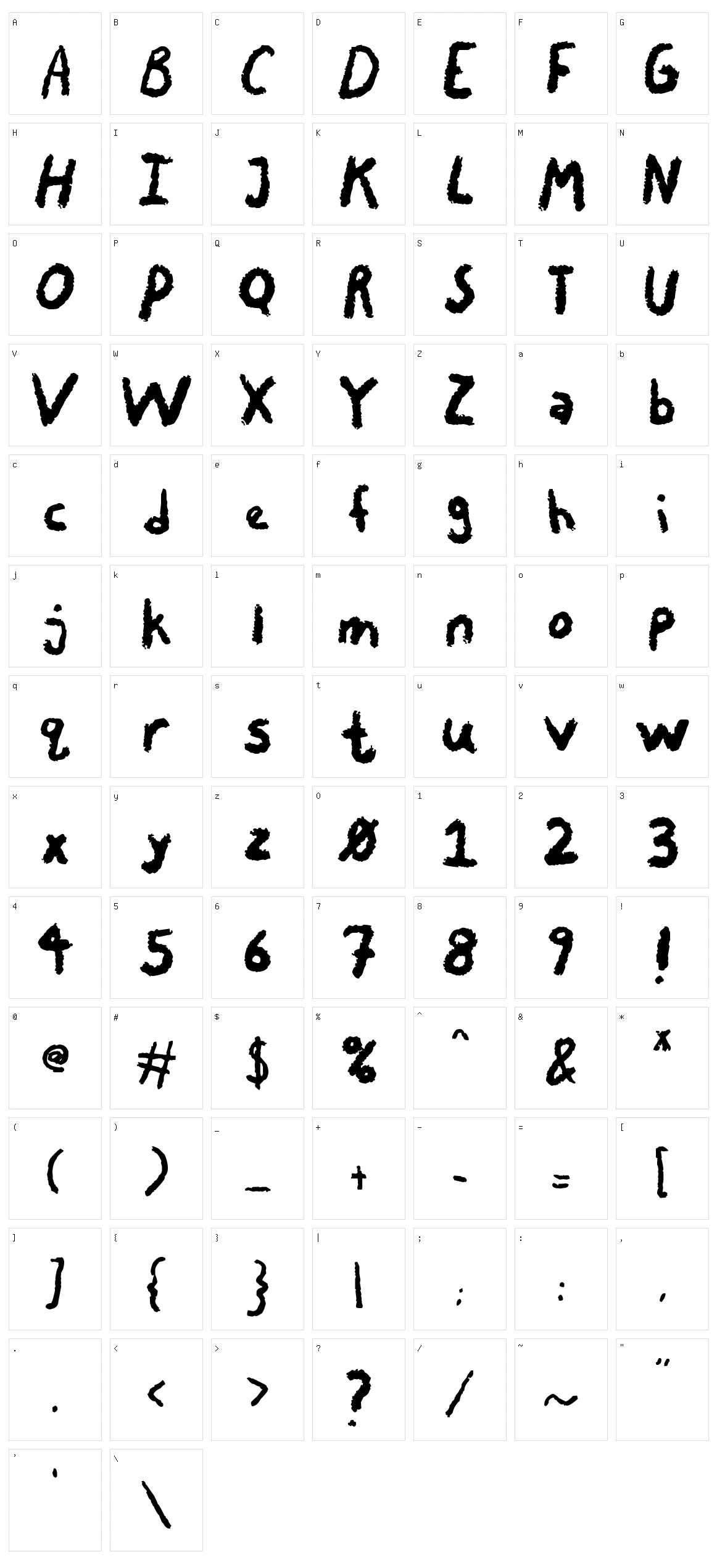
The free font Chalky Chicken is carefully designed by Captain Jack Harkness, showcasing a thoughtful balance of creativity and usability and falls under the Trash font style. When you download the ZIP file, it contains only 19.07 KB of font files, making it lightweight and quick to download. Please review the license details below to understand permitted usage and distribution rights. If license information is not available, we recommend using this font for personal projects only or contacting the author directly for commercial usage permissions.